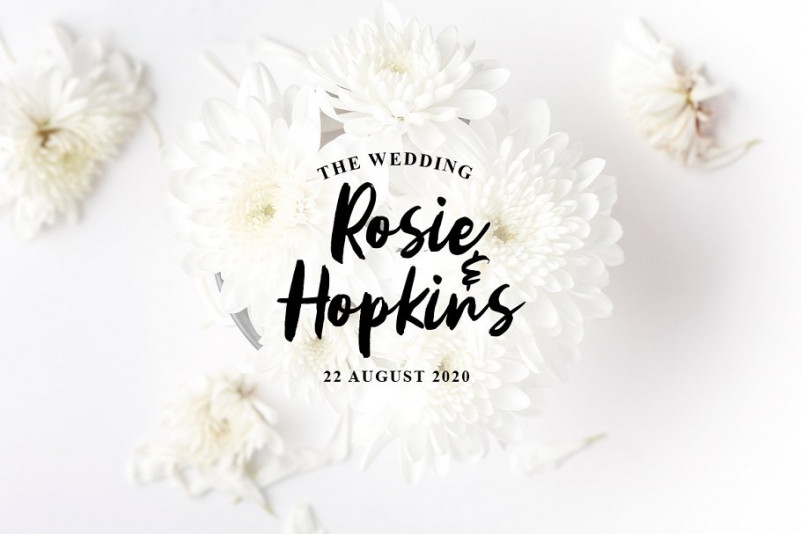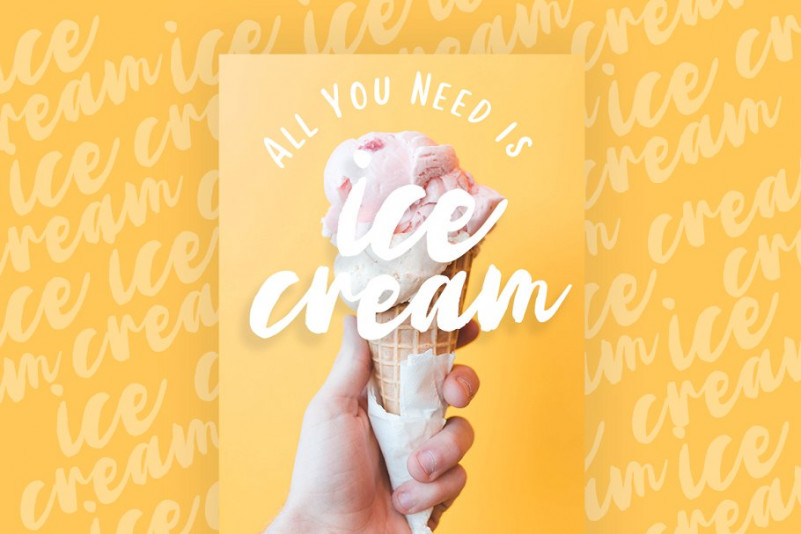
Aggitha Brush Font
Aggitha Brush Font – Free Demo
Befonts continues to introduce you to a hand brush font designed by Weape Design. This font is for those who want to show something smooth and modern. Introducing Aggitha Brush Font. Aggitha Handwritten Brush Font, script with natural dry brush strokes make it beautiful, and the stroke of hand quickly. Aggitha is perfect for signature, branding, wedding, fashion, photography title, poster, social media, ad banner, book cover, packaging, handwritten quotes, greeting cards and advertising.